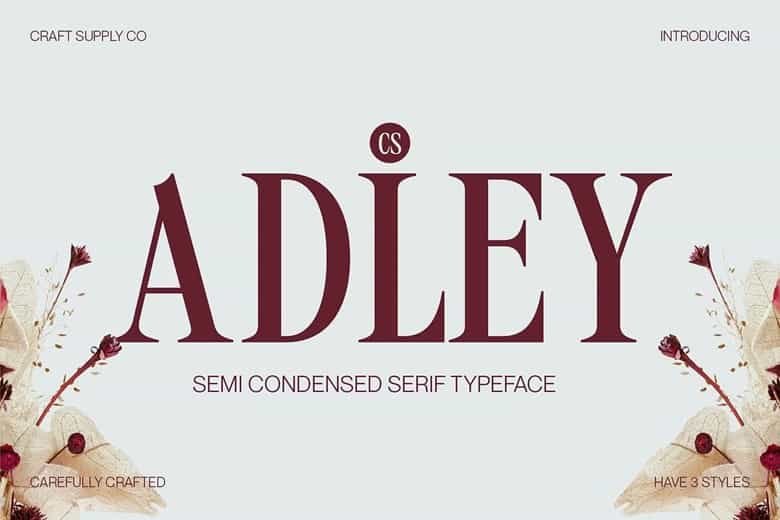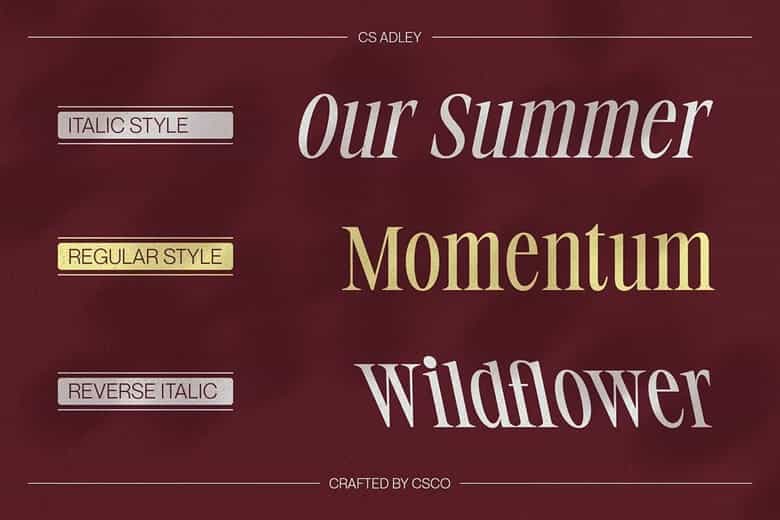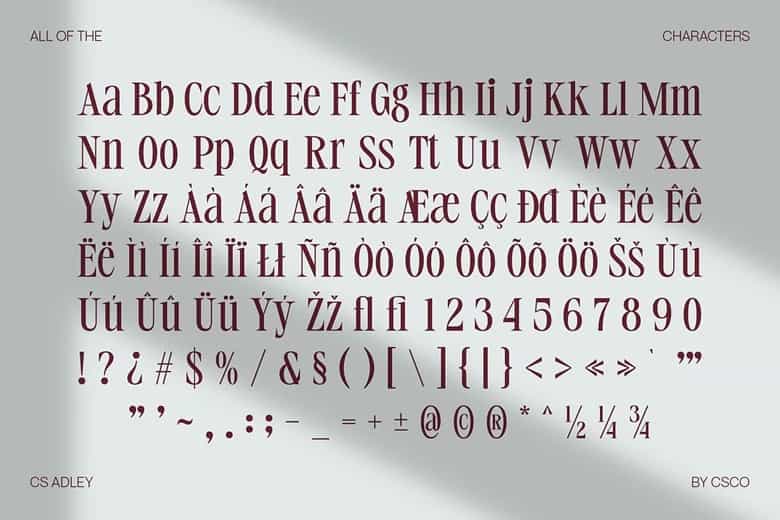
CS Adley is a semi condensed serif font with the style of serifs and at the same time revealing touches of the modern world. The typeface that I used has rather thin serifs which are stretched and its measurements are closer to Dido’s. About its design, it is smooth yet not without details that makes it appealing and well-balanced, good for branding purposes, editorial use, and exclusive designs for packaging.